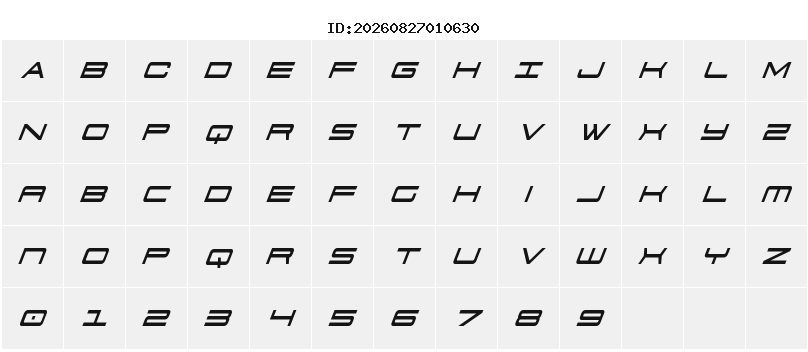
911 Porscha Condensed Italic Preview
• Font Name: 911 Porscha Condensed Italic
• Font Style: Condensed Italic
About 911 Porscha Condensed Italic.ttf
911 Porscha Condensed Italic.ttf is a modern, elegant sans-serif font designed for ultimate readability and visual harmony. Perfect for branding, headlines, web design, and print materials.